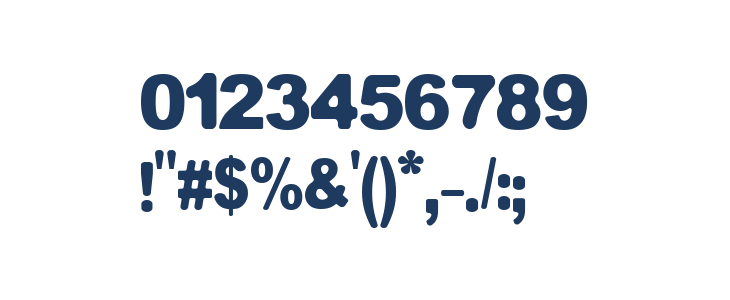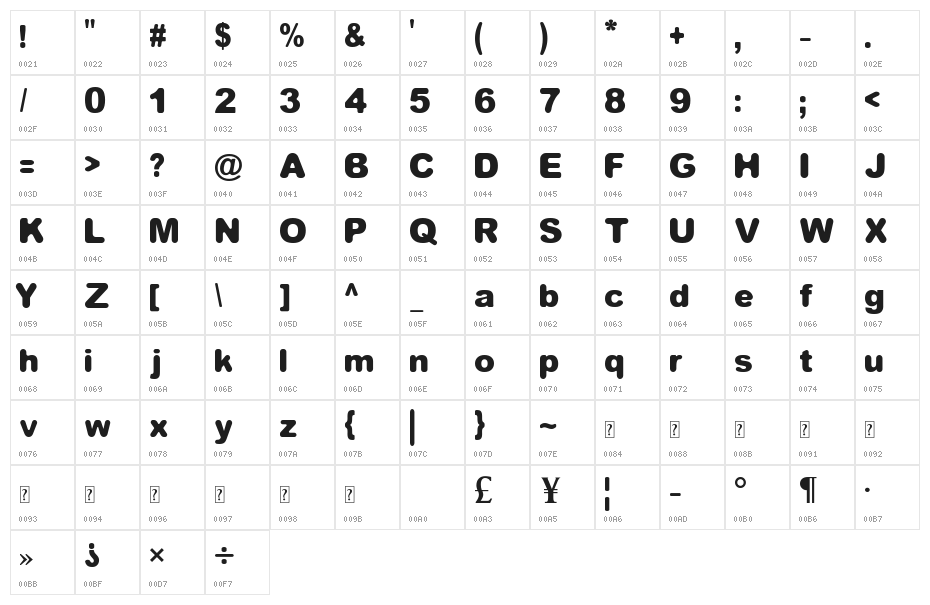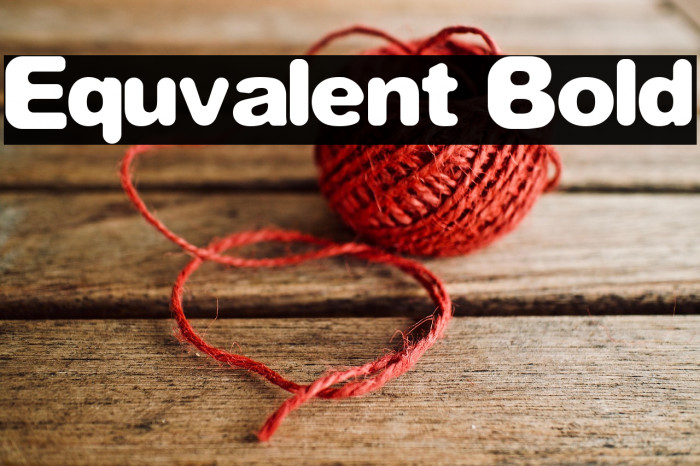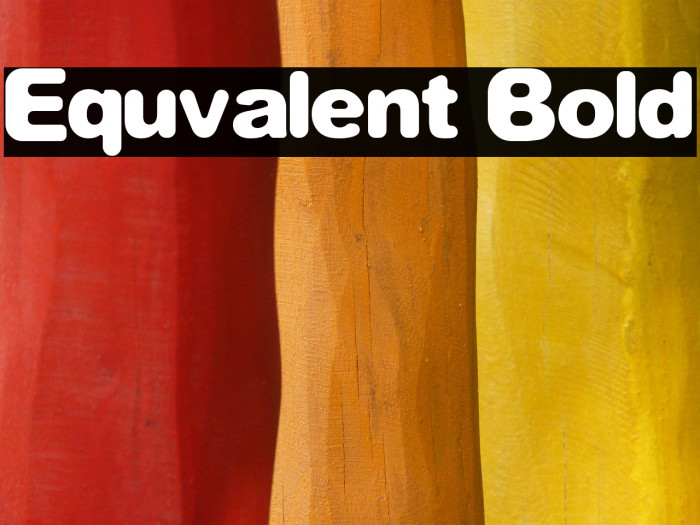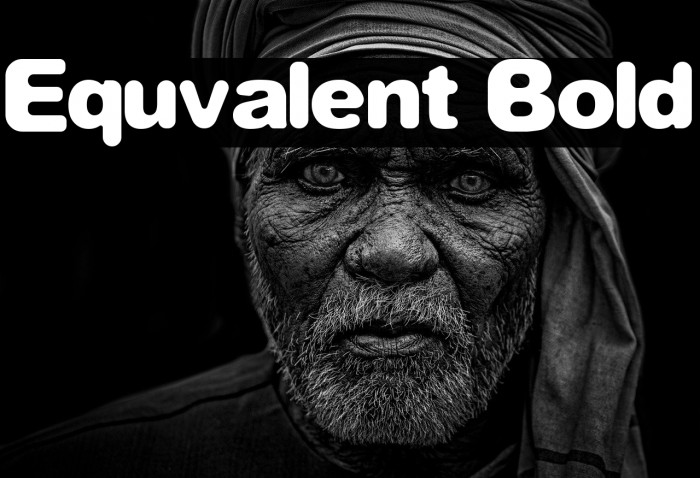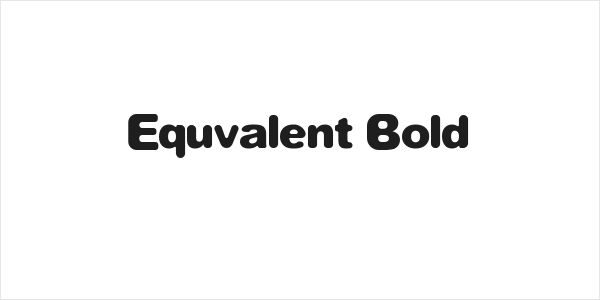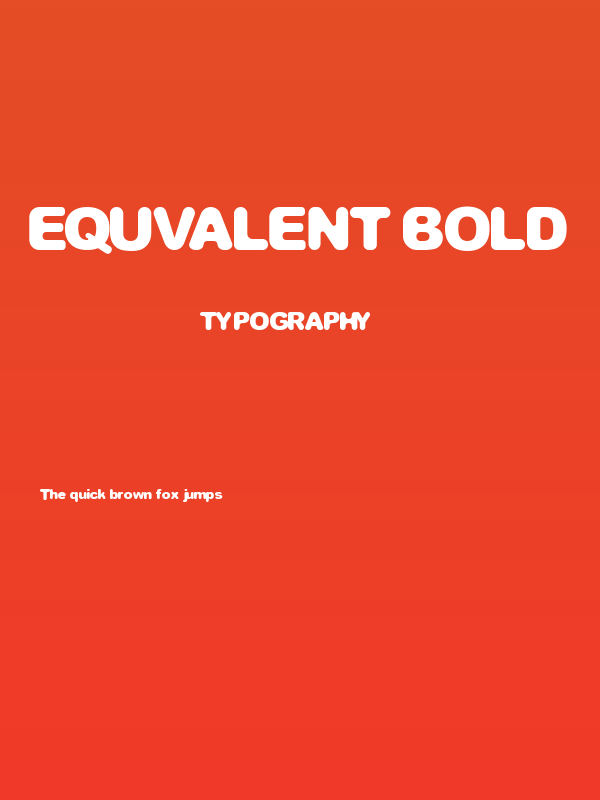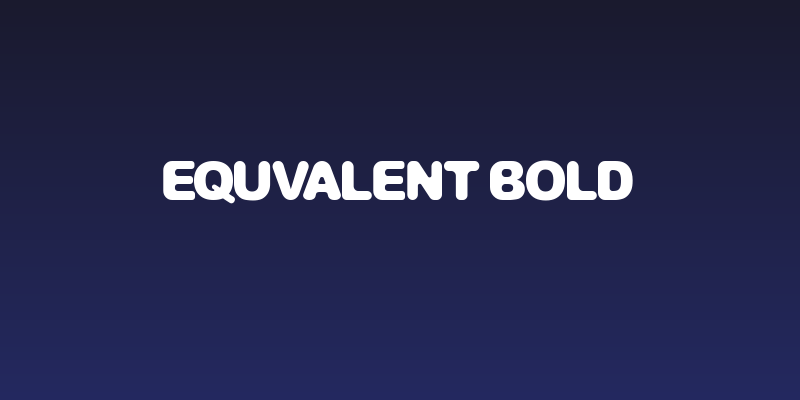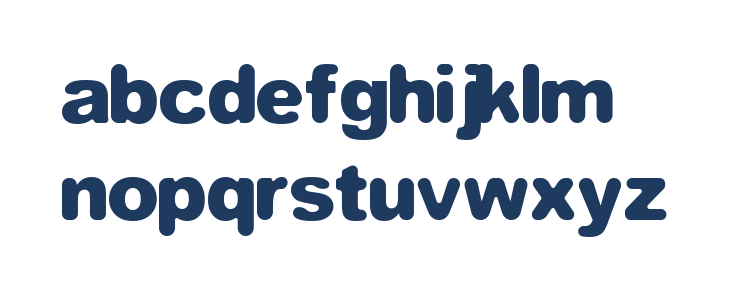
Equvalent Bold Font
Equvalent Bold Description
This font features bold, rounded characters that convey a sense of strength and friendliness. The letters are uniformly thick, with smooth curves and a consistent stroke width throughout. The uppercase and lowercase letters maintain a cohesive style, with the lowercase letters slightly more compact. The numerals are equally bold and rounded, ensuring readability and a playful aesthetic. Special characters are well-integrated, maintaining the same bold and rounded style, making them suitable for various design contexts. The overall appearance is modern and approachable, suitable for a wide range of applications.
| Proposed Projects | Ideal for branding, advertising, children's books, and playful design projects. |